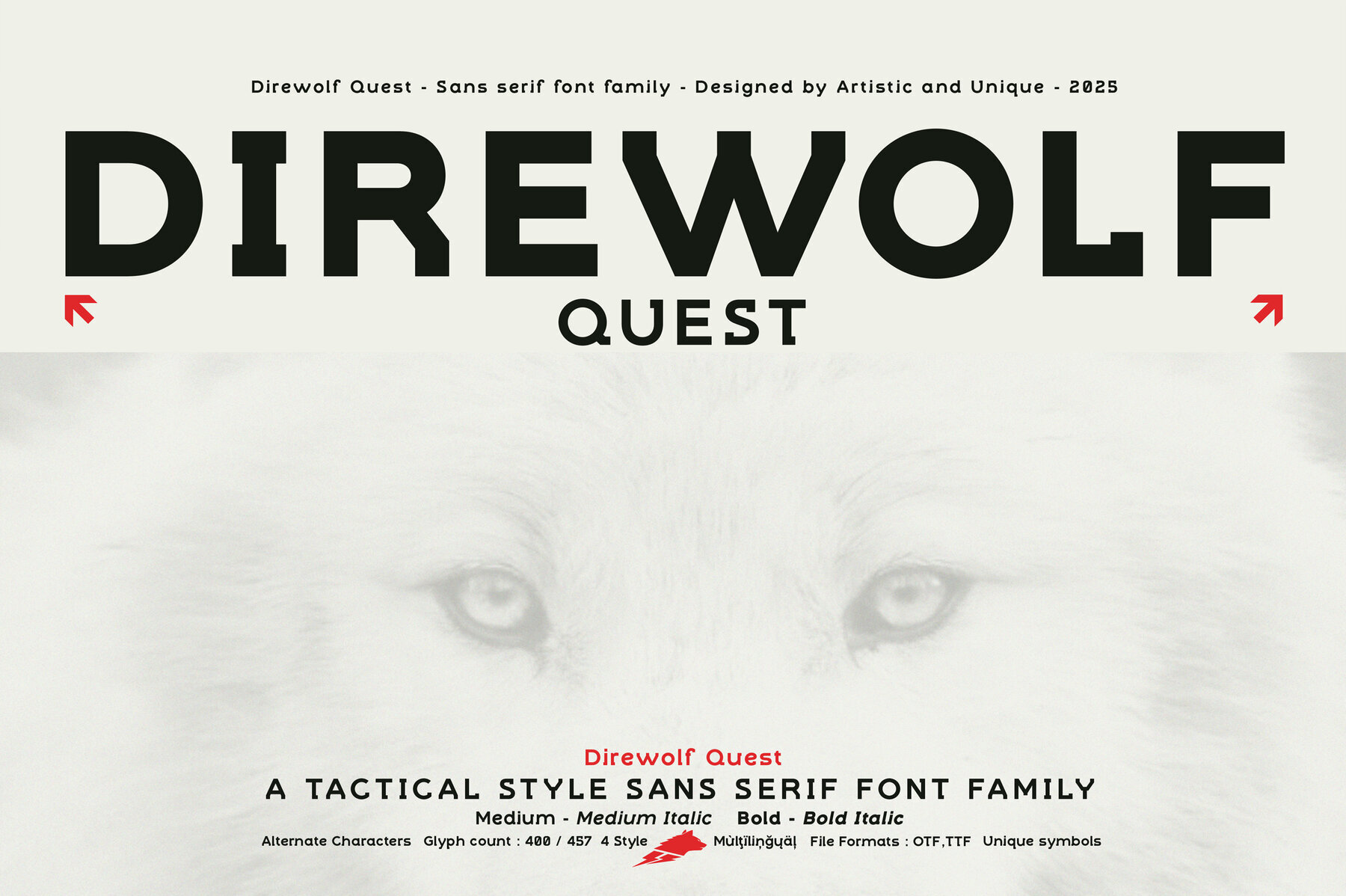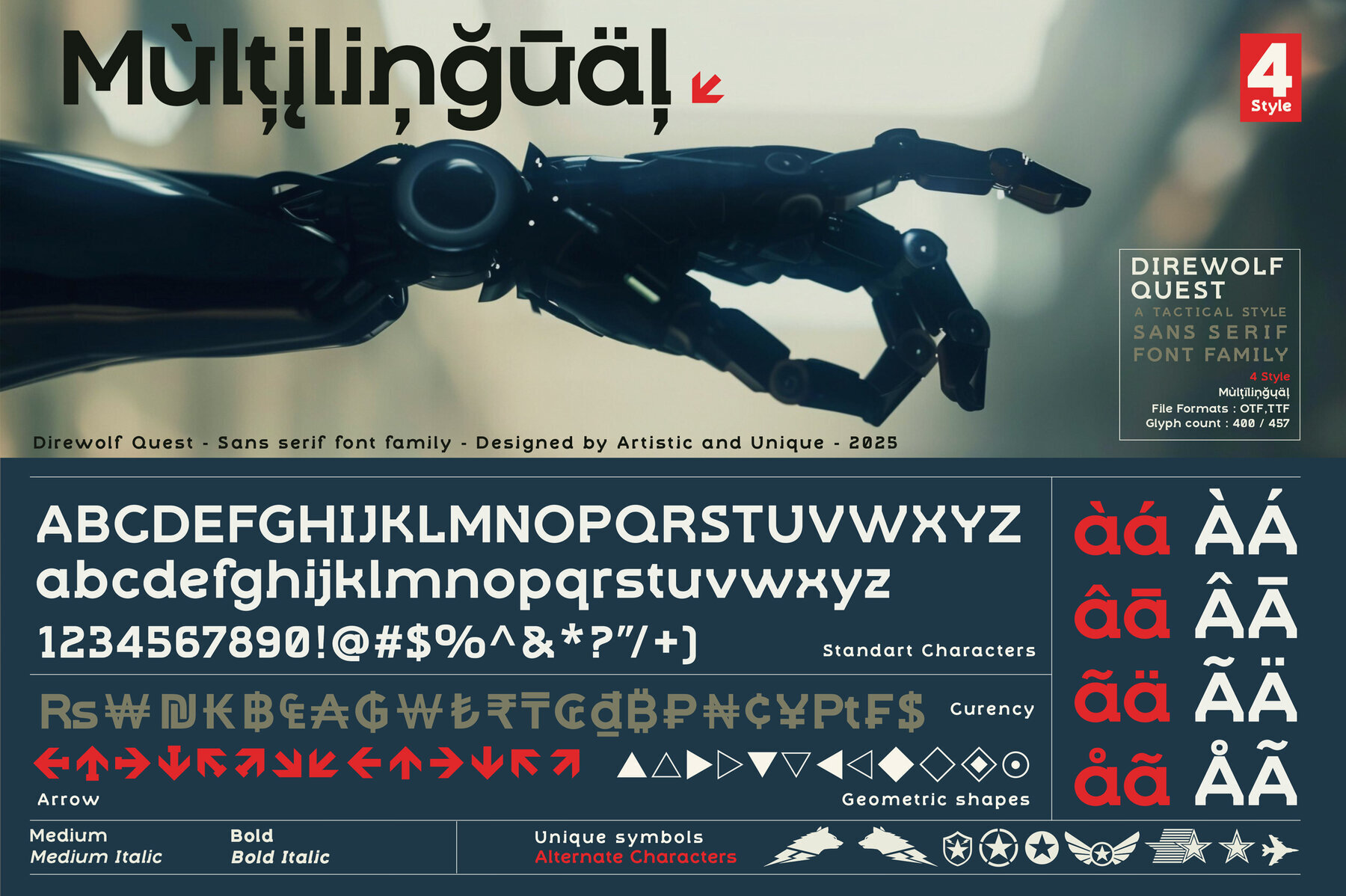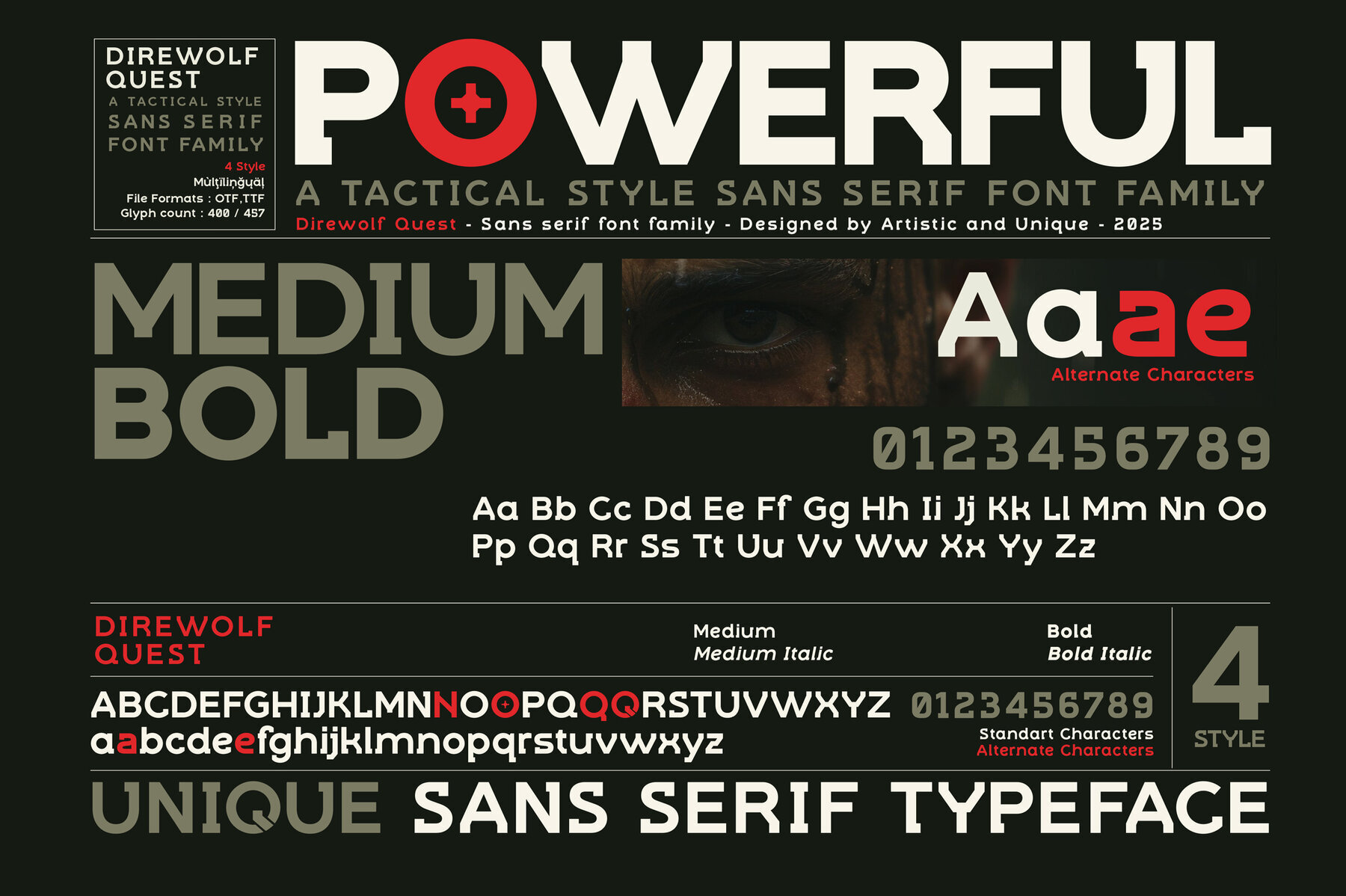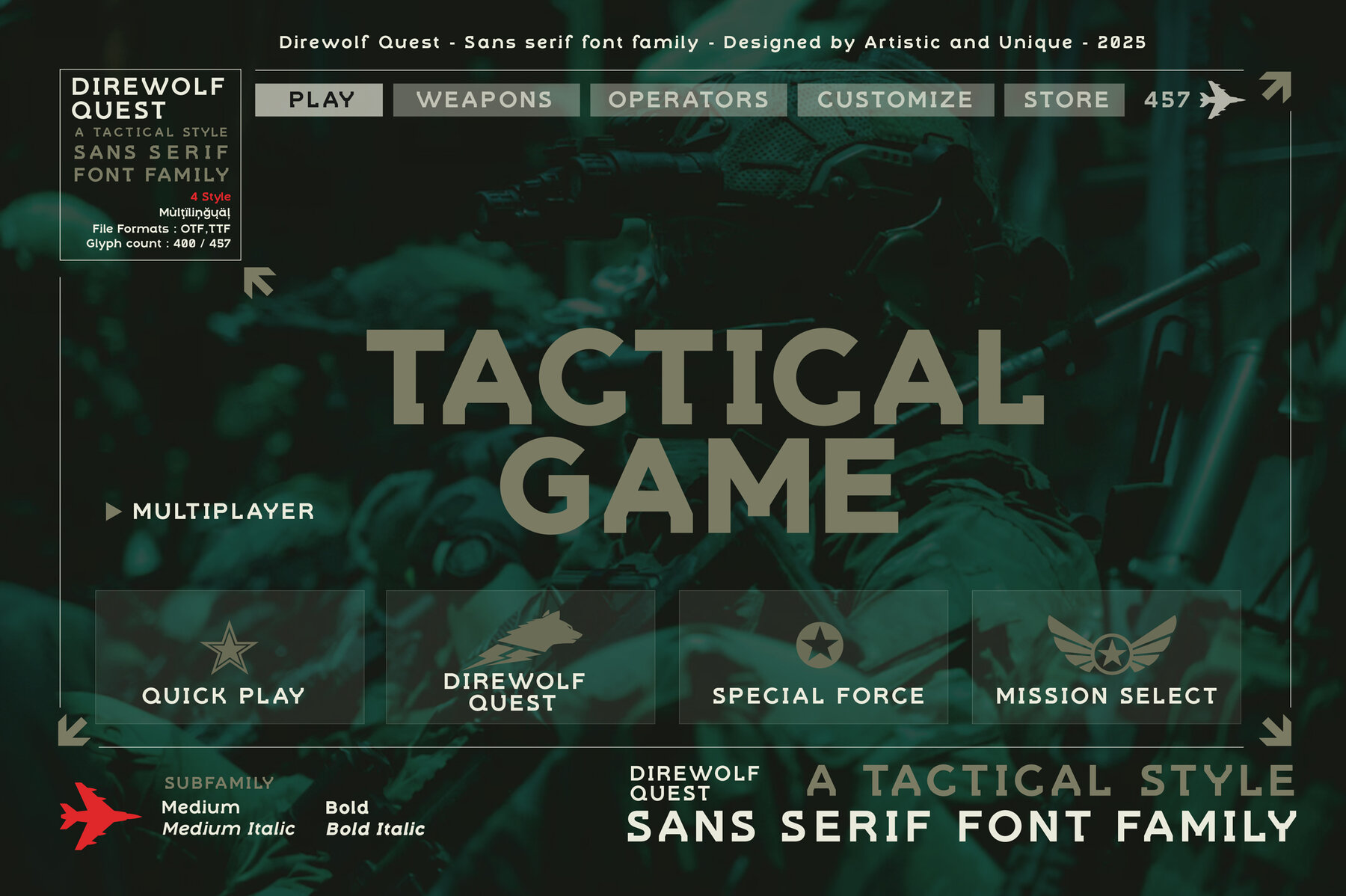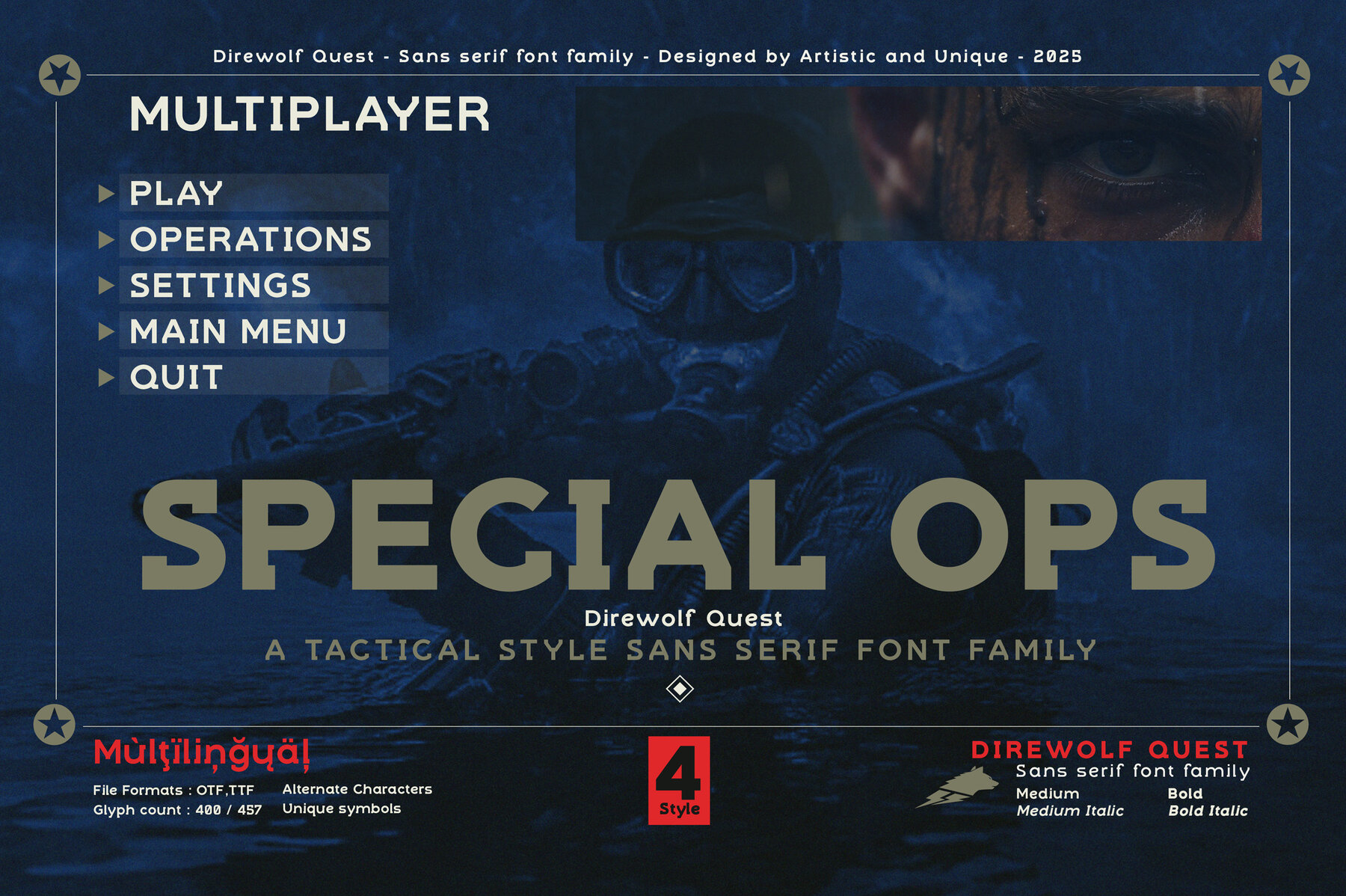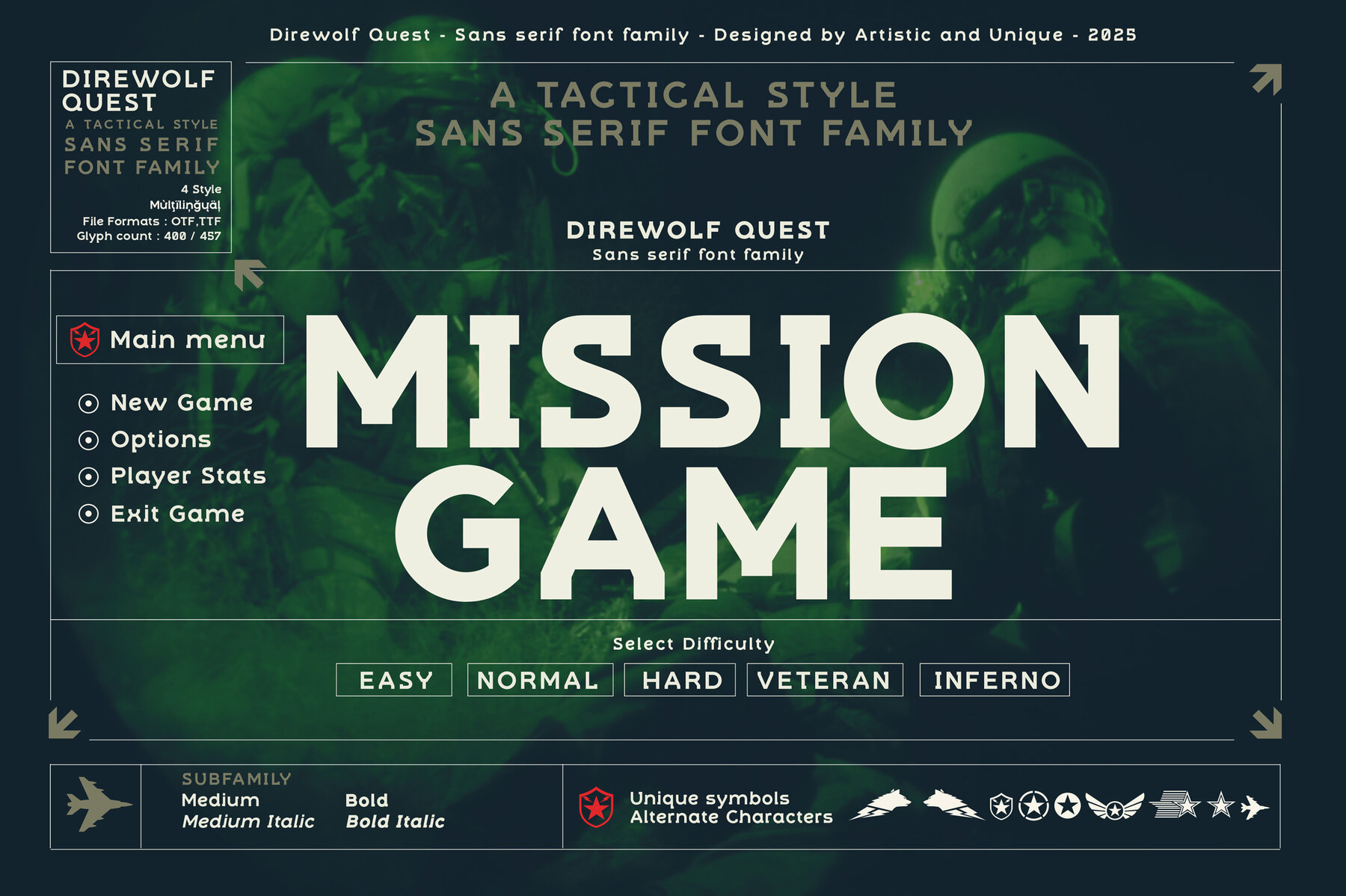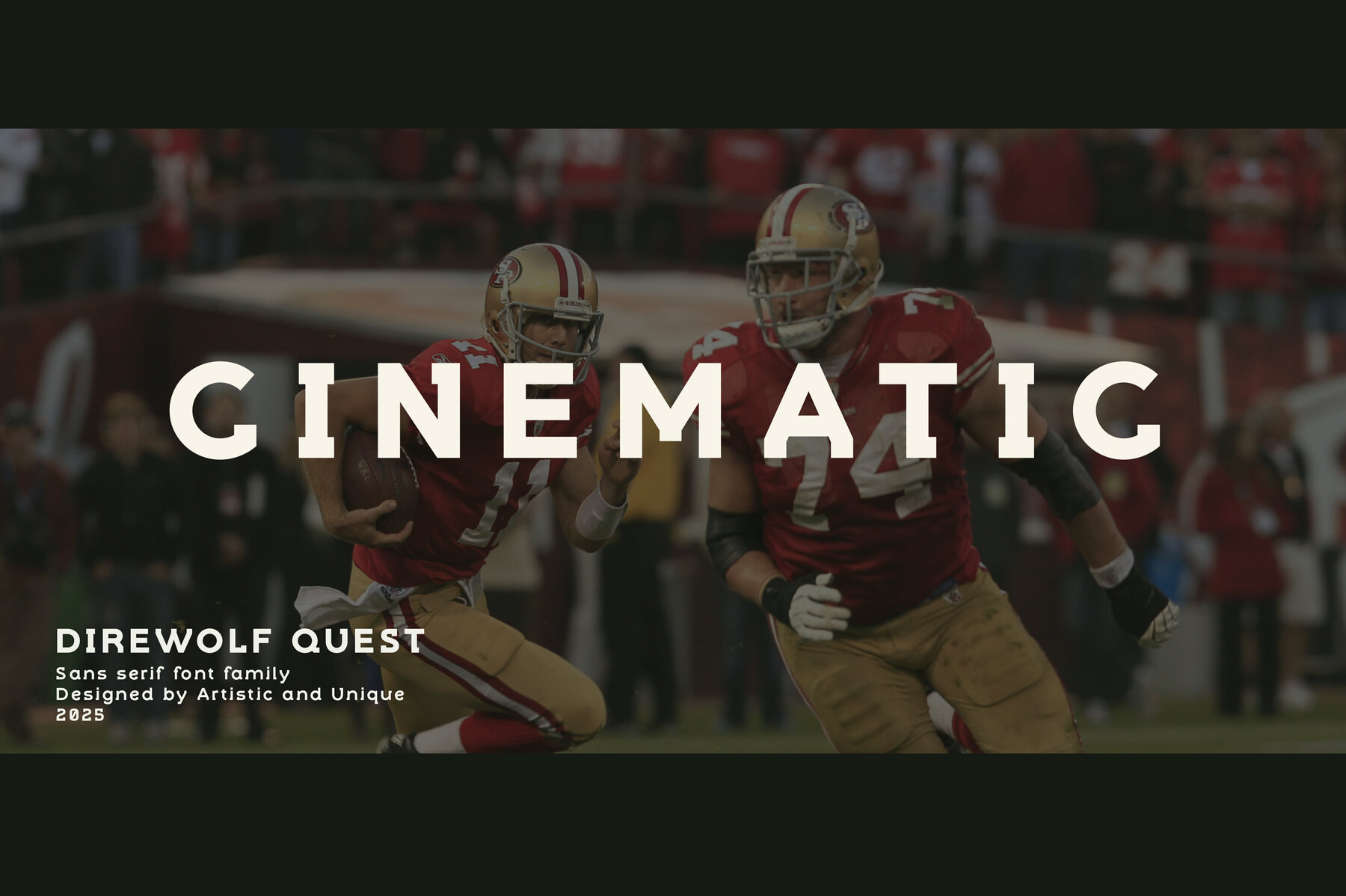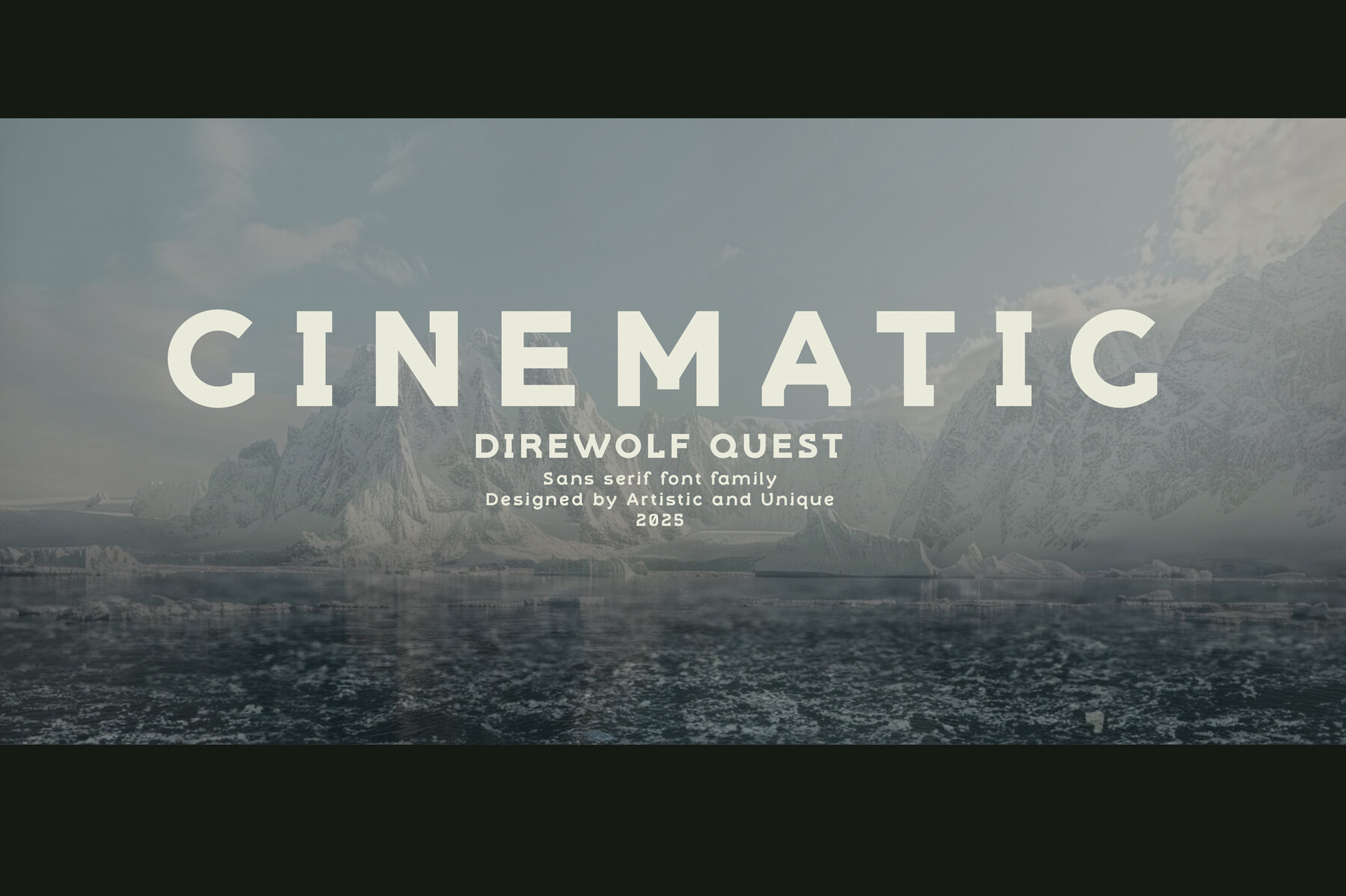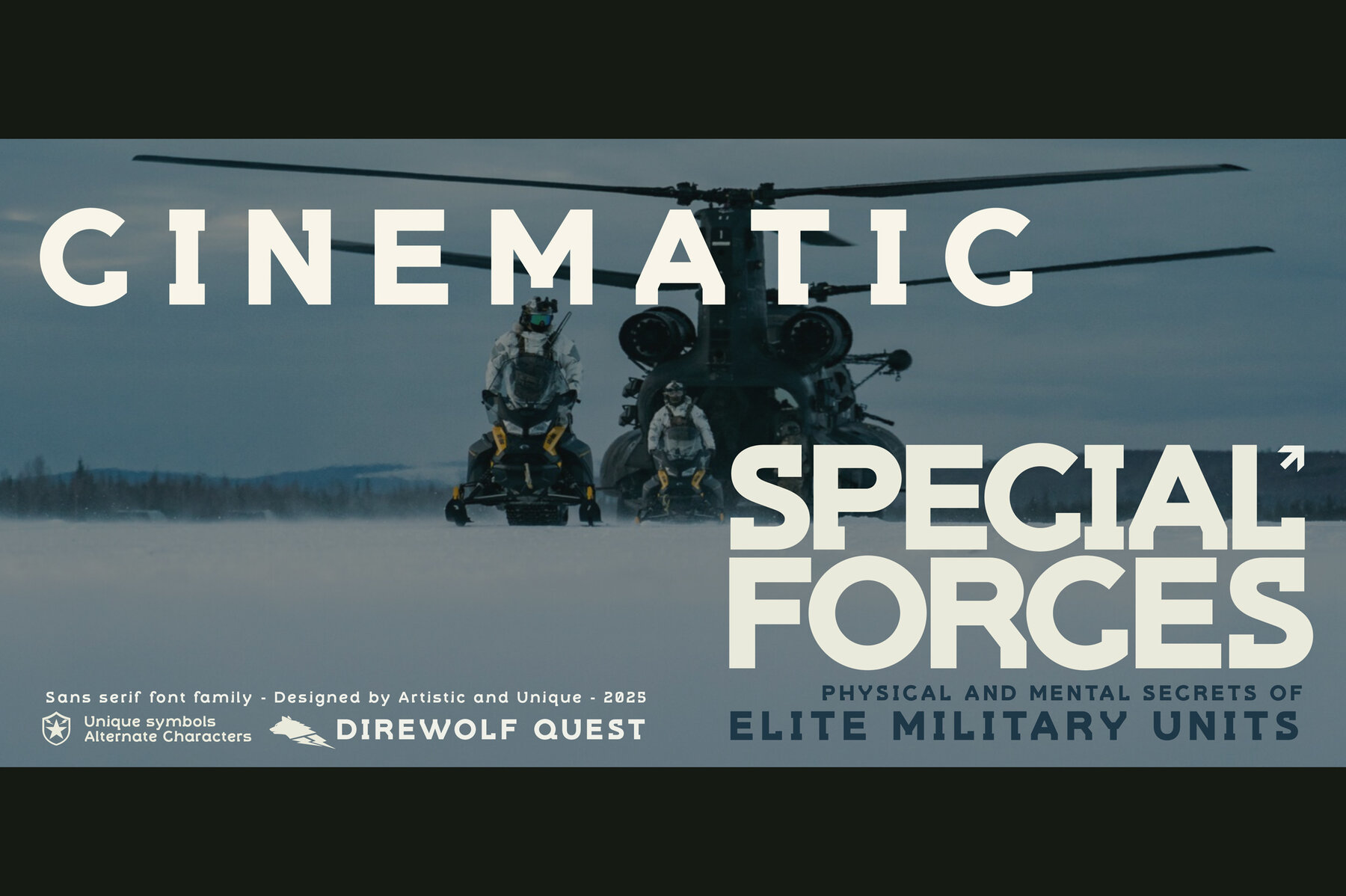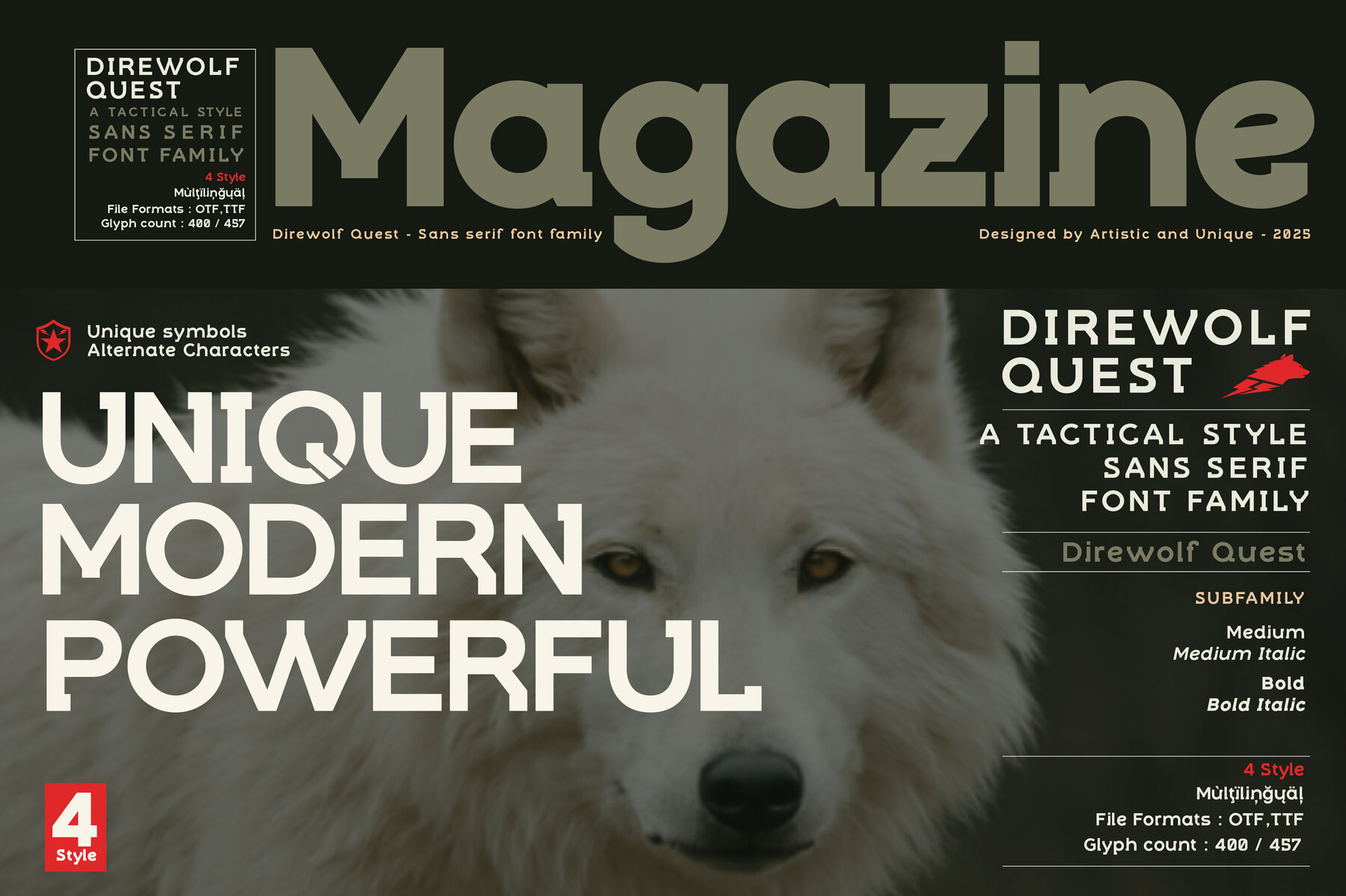
Direwolf Quest Font
The Direwolf Quest font family embodies a tactical sans serif style, ideally suited for projects that demand a modern and futuristic flair. Its clean, athletic structure graduates it into a choice font for diverse applications, ranging from branding, military materials to science fiction ventures, and more. Its versatility ensures it's equally effective in both display and print adaptations. For action-driven projects, the italic style offers a dynamic and rapidly engaging tempo. Use Direwolf Quest to craft impressive brand identities, game designs, athletic sport themes, and eye-catching headlines or movie titles.Direwolf Quest: A Tactical Sans Serif Font Family